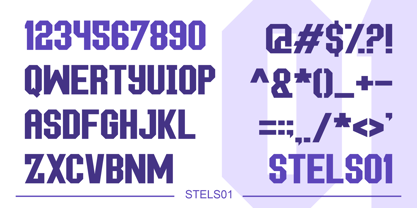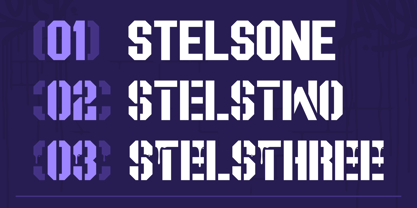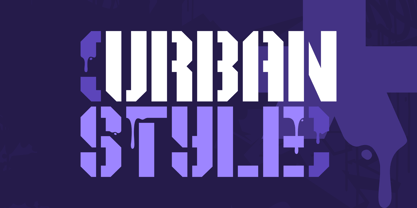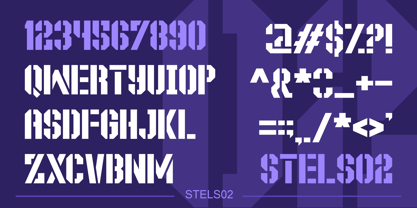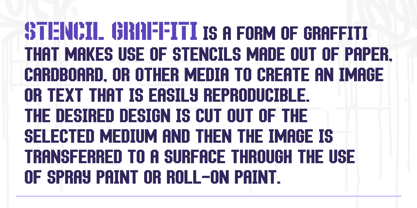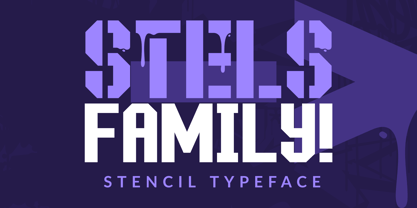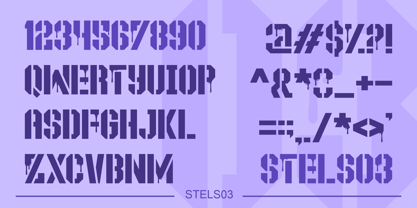
Stels
by Iron Set Studio
The Stels Font Family was designed by Anton Kustsinski and published by Iron Set Studio. Stels contains 3 styles and family package options. More about this family
This display font combines bold stencil construction with a raw urban attitude. Its sharp, angular letterforms convey strength, speed, and intensity, making it well suited for gaming, sports branding, and street-inspired visuals. The fragmented shapes and dense geometry add an aggressive, rebellious tone, while the precise, futuristic structure introduces a subtle cyberpunk feel. This balance of street energy and digital aesthetics makes the font ideal for headlines, logos, and designs that require a strong, modern visual impact.
Designers: Anton Kustsinski
Foundry: Iron Set Studio